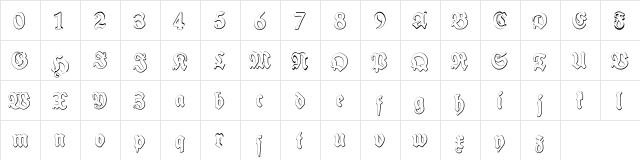
Schneidler Halb Fette Beveled Regular
Design Context for Schneidler Halb Fette Beveled Typeface
Schneidler Halb Fette Beveled is a composed and adaptable typeface that performs quietly and consistently across a wide range of design contexts.